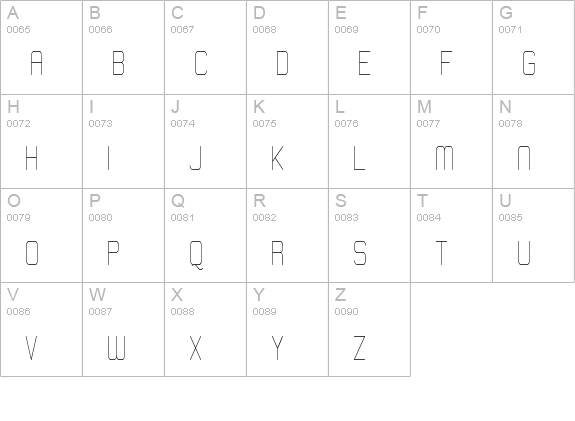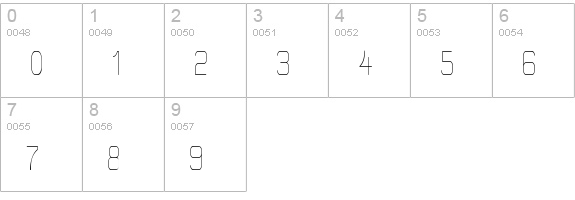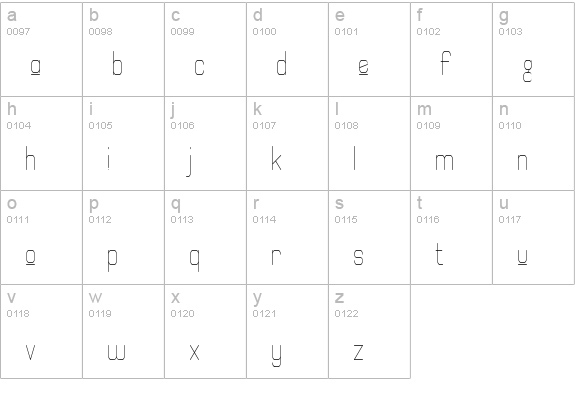
Elgethy Est Upper Condensed is a distinctive, condensed-width variant in the Elgethy typeface family \xE2\x80\x94 well suited to design and typography projects.
Elgethy Est Upper Condensed font is a modern and stylish typeface that exudes sophistication and elegance. Its tall and condensed letterforms make it perfect for creating eye-catching headlines and titles. This versatile font is suitable for a wide range of design projects, from branding to editorial design. What makes Elgethy Est Upper Condensed font even more appealing is that it is available for free download at FontsMarket.com. This means that you can easily access and use this stunning font in your projects without any cost. Whether you're a designer looking to add a touch of class to your work or a business owner in need of a fresh new look for your brand, Elgethy Est Upper Condensed font is a fantastic choice. Download it today and elevate your designs to the next level!